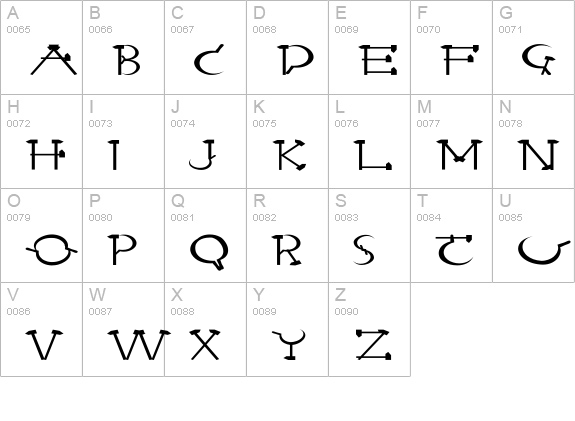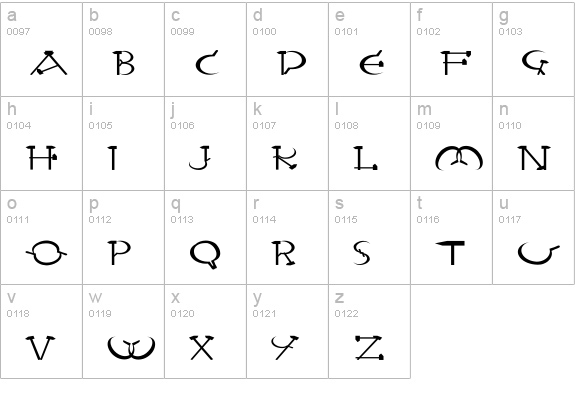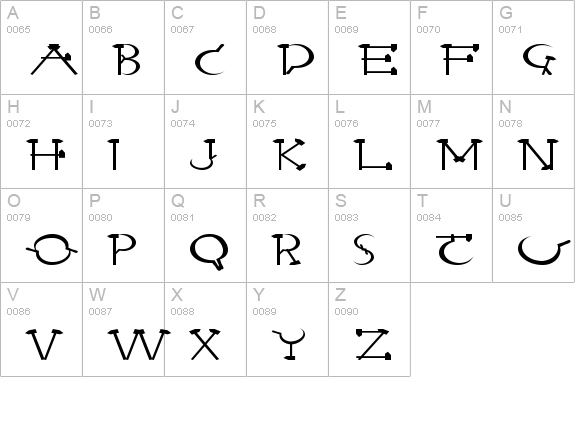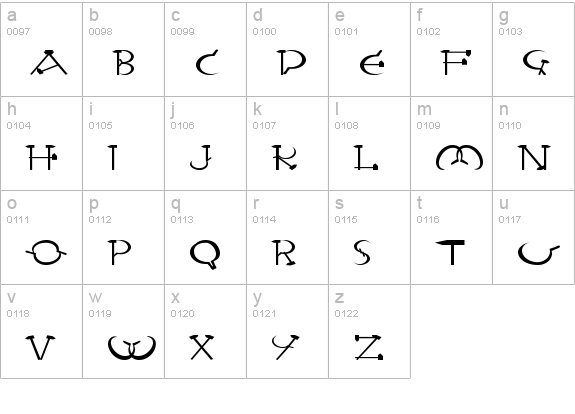
RedLetter Ex Font Details
Introducing RedLetter Ex, a captivating and stylish font that exudes a sense of elegance and sophistication. With its bold and eye-catching letterforms, this typeface is sure to make a lasting impression on any design project. What sets RedLetter Ex apart is not only its visually striking appearance, but also its versatility. Whether you're creating a logo, designing a website, or crafting a beautiful invitation, this font will add a touch of class and professionalism to your work. But what truly makes RedLetter Ex stand out is the fact that it is available for free. Yes, you read that right! This incredible font is freely available to download at FontsMarket.com. Now, you can enhance your designs without having to worry about breaking the bank. RedLetter Ex is the perfect choice for those who want to make a statement with their typography. Its clean lines, balanced proportions, and unique charm make it an ideal font for both print and digital media. So, why wait? Unlock the potential of your designs with RedLetter Ex. Download this stunning font now, for free, at FontsMarket.com and let your creativity soar.